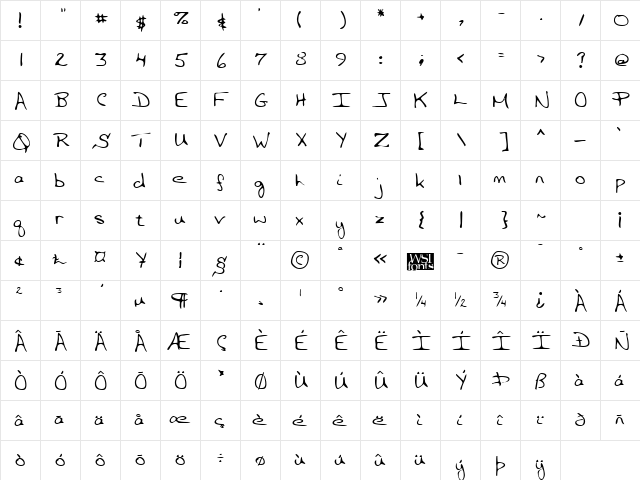
ClaytonsHand Regular
Design Context for ClaytonsHand Typeface
ClaytonsHand brings a calligraphic fluidity to the page — its connecting strokes and expressive curves give it an unmistakably human quality.